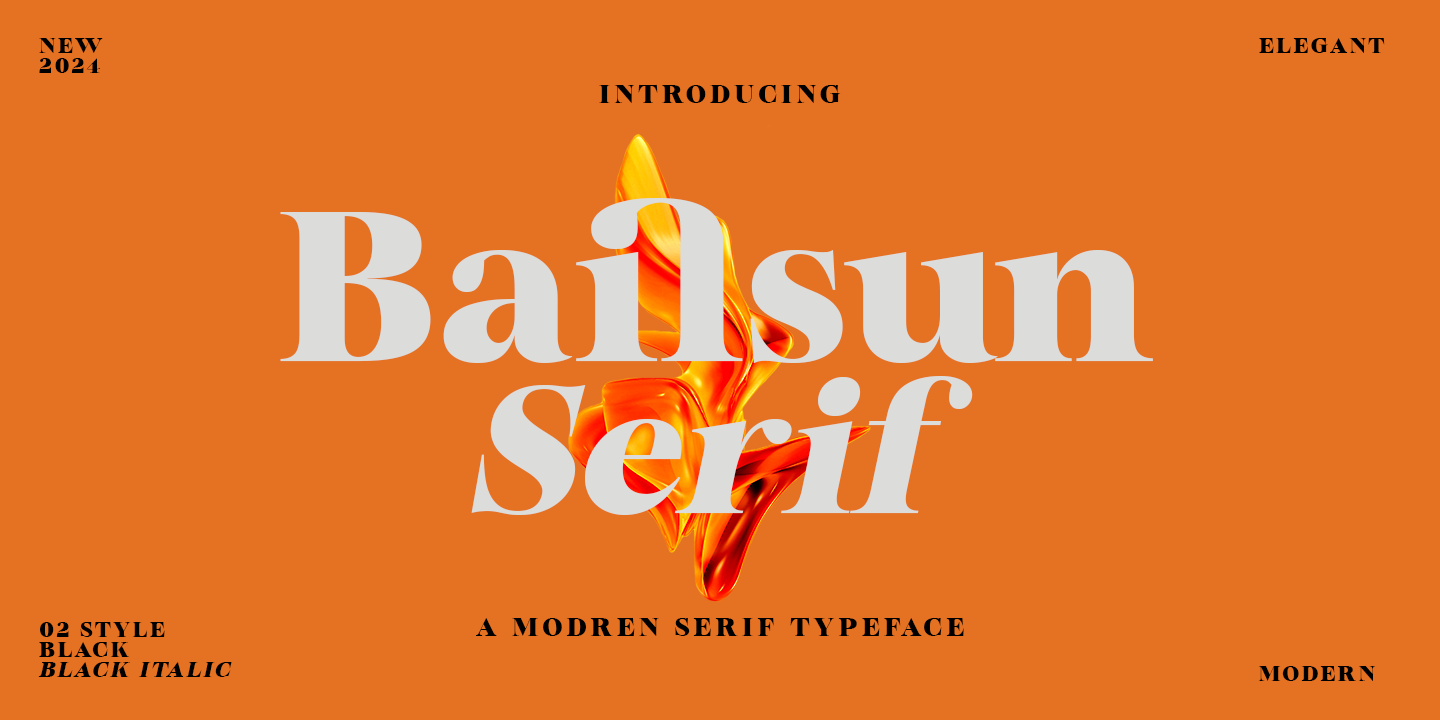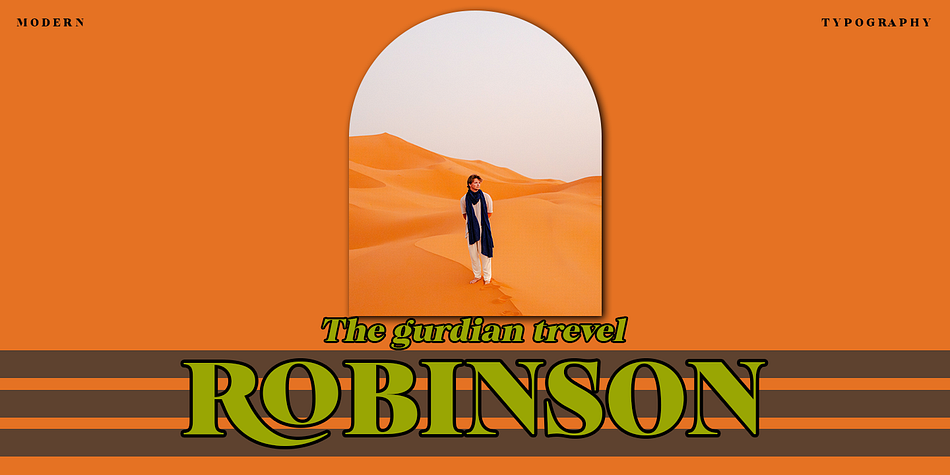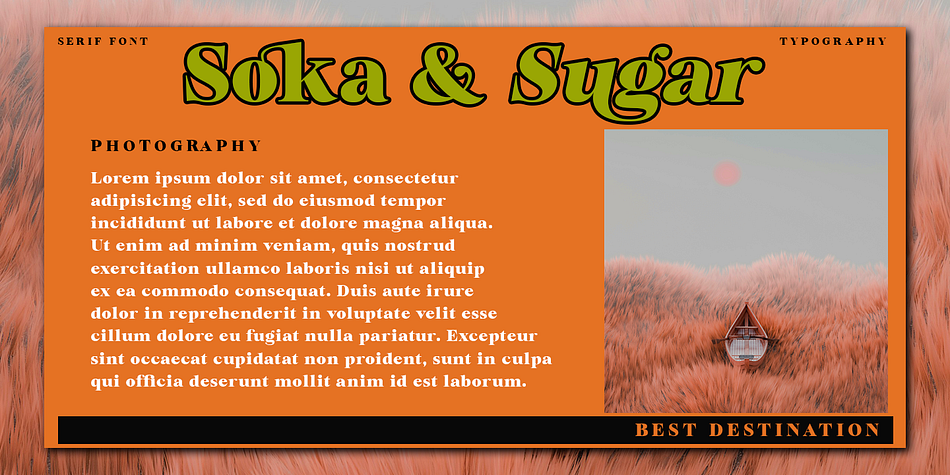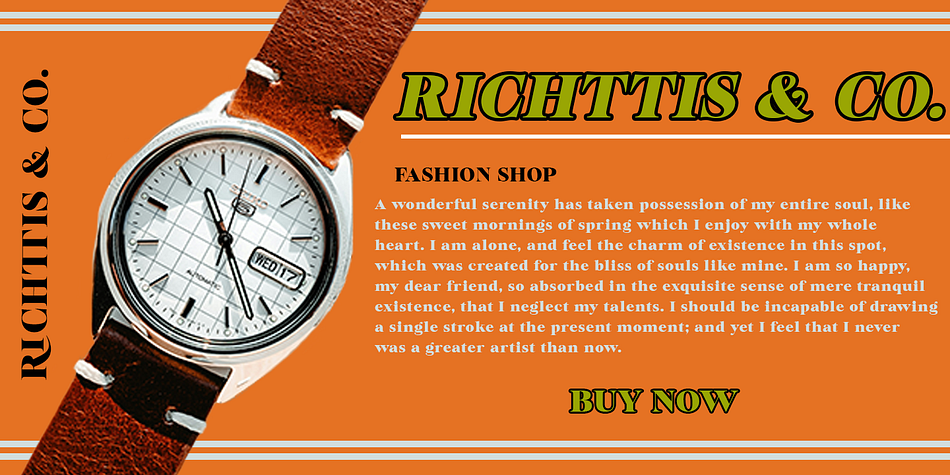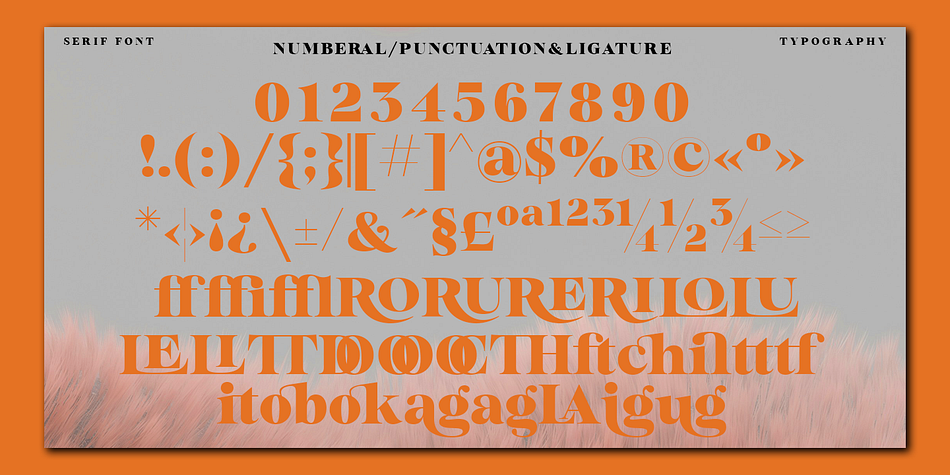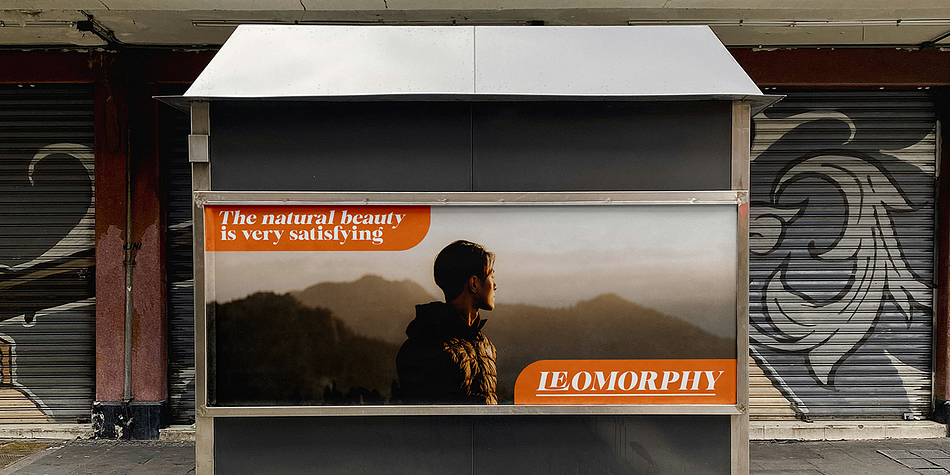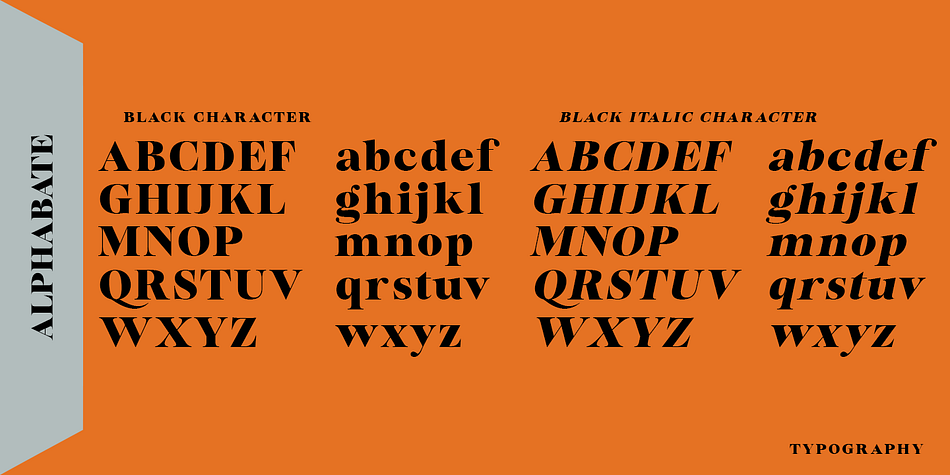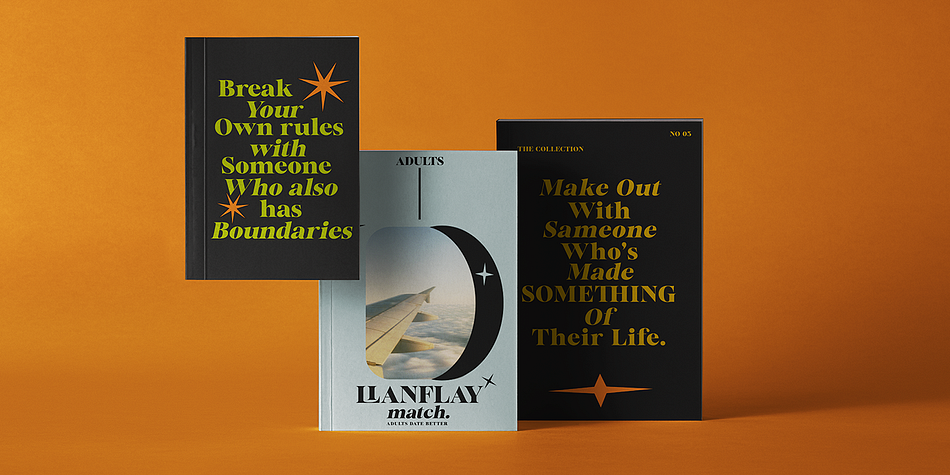
Bailsun
Bailsun is a serif font family published by Gatype.
Bailsun is a serif font that combines a classic feel with a modern touch. It features strong serifs with slightly curved edges, giving it an elegant and sophisticated appearance. The letters are designed with balanced proportions and consistent stroke thickness, making it easy to read in both long and short texts.
Bailsun is perfect for design projects that require a formal look, such as editorials, books, or branding that aims to convey a luxurious and professional image.